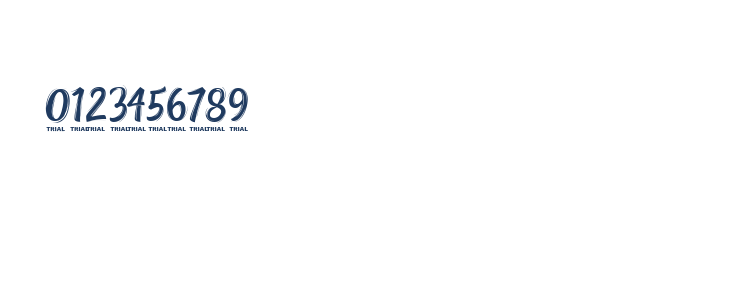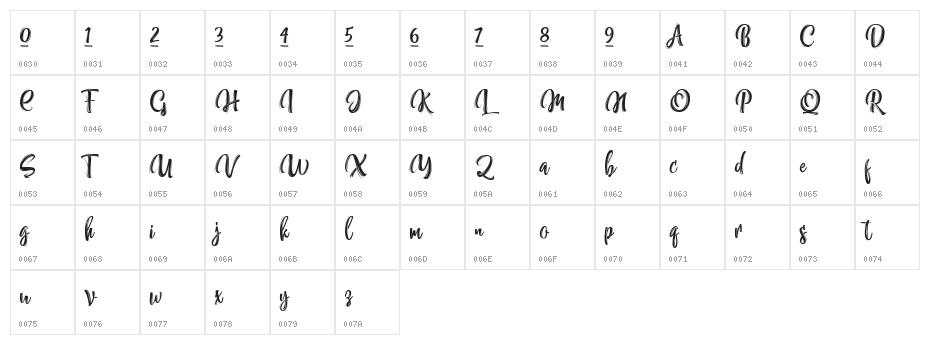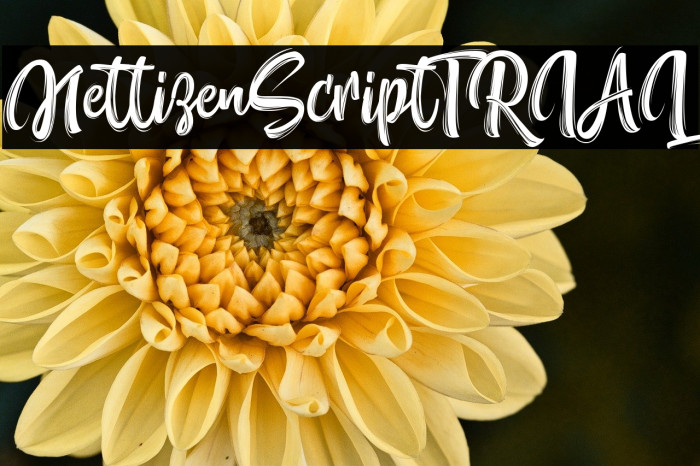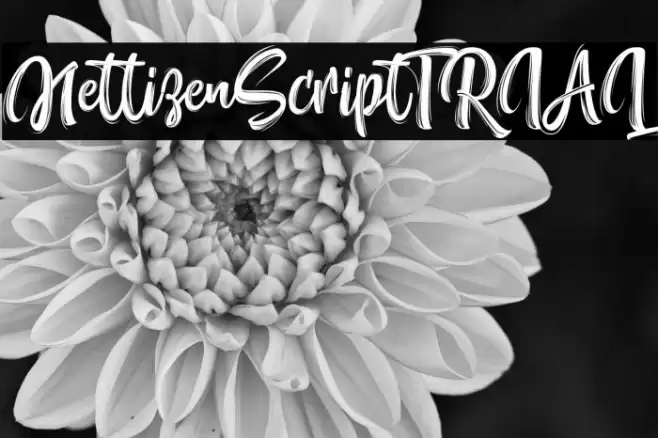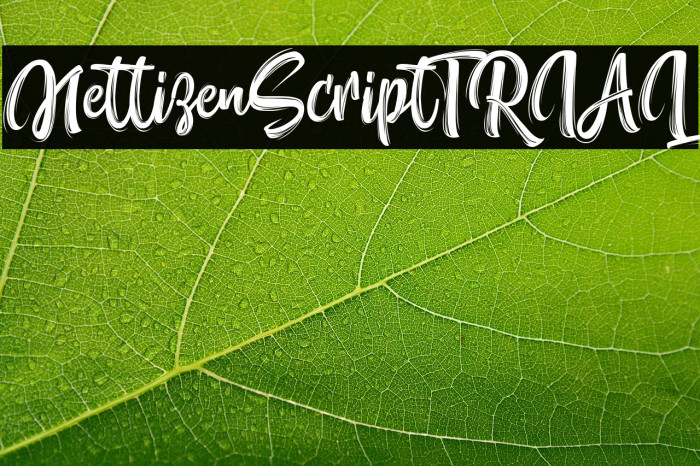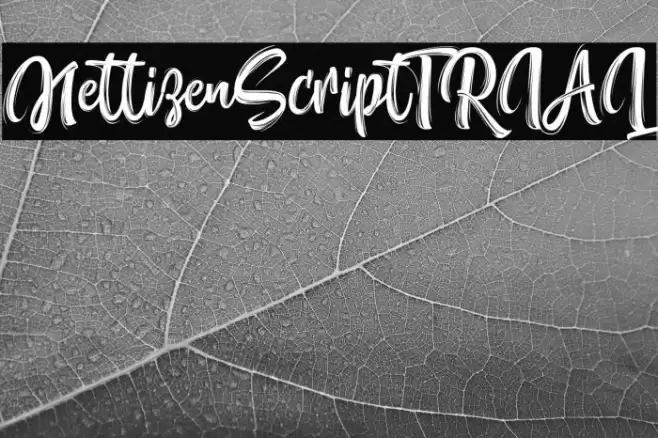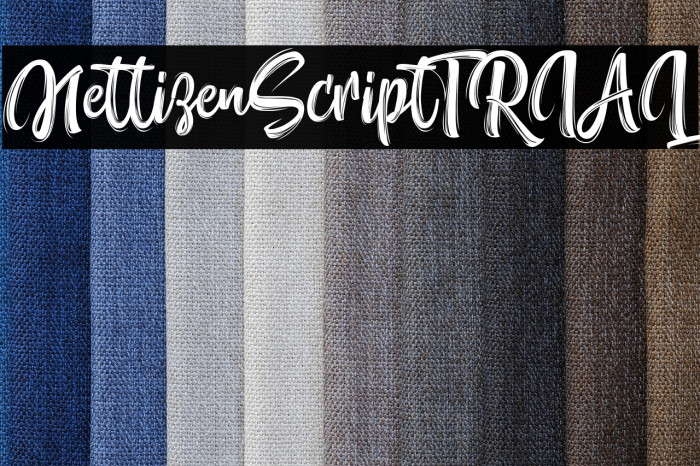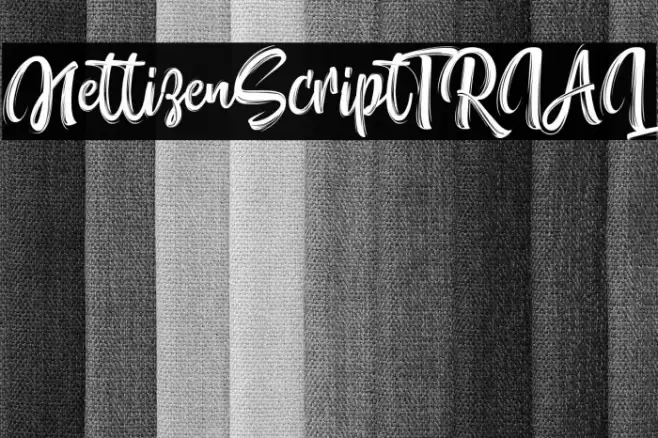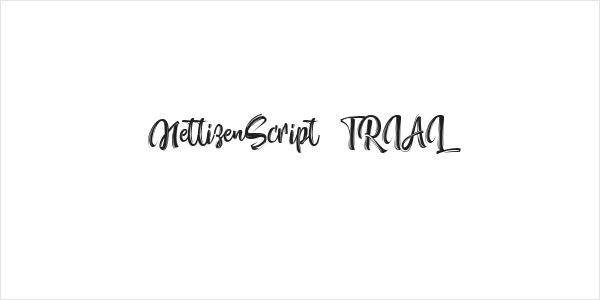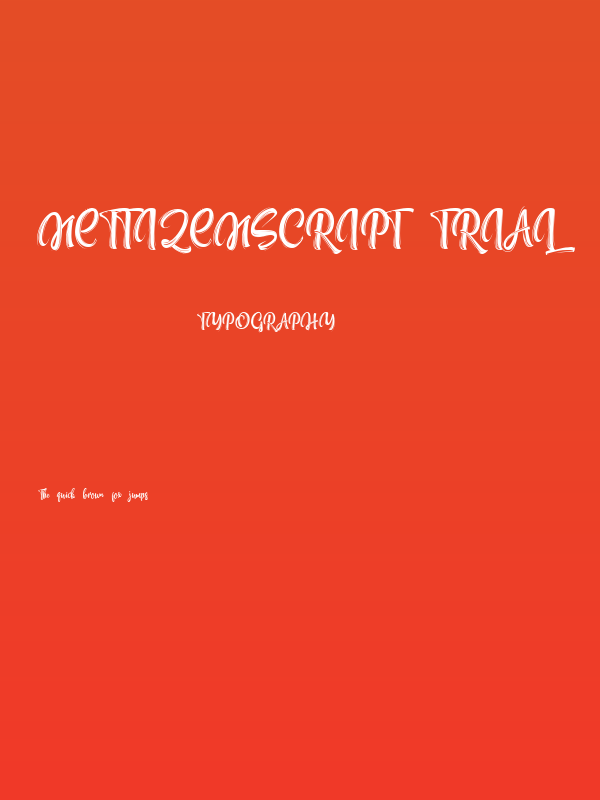
NettizenScript_TRIAL Font
NettizenScript_TRIAL Description
This font features a dynamic and expressive script style, characterized by its bold and flowing strokes. The letters are interconnected with a smooth, cursive flair, giving it a lively and artistic appearance. The uppercase letters are particularly striking, with exaggerated loops and swashes that add a sense of movement and elegance. The lowercase letters maintain a consistent style, complementing the uppercase with their own graceful curves. The numerals are equally bold, maintaining the font's overall aesthetic with their rounded and fluid shapes. This font is ideal for projects that require a touch of sophistication and creativity, such as invitations, branding, and artistic designs.
| Use Case | Logos, Headlines, Artistic designs |
| Proposed Projects | Ideal for invitations, branding, artistic designs, and creative projects. |